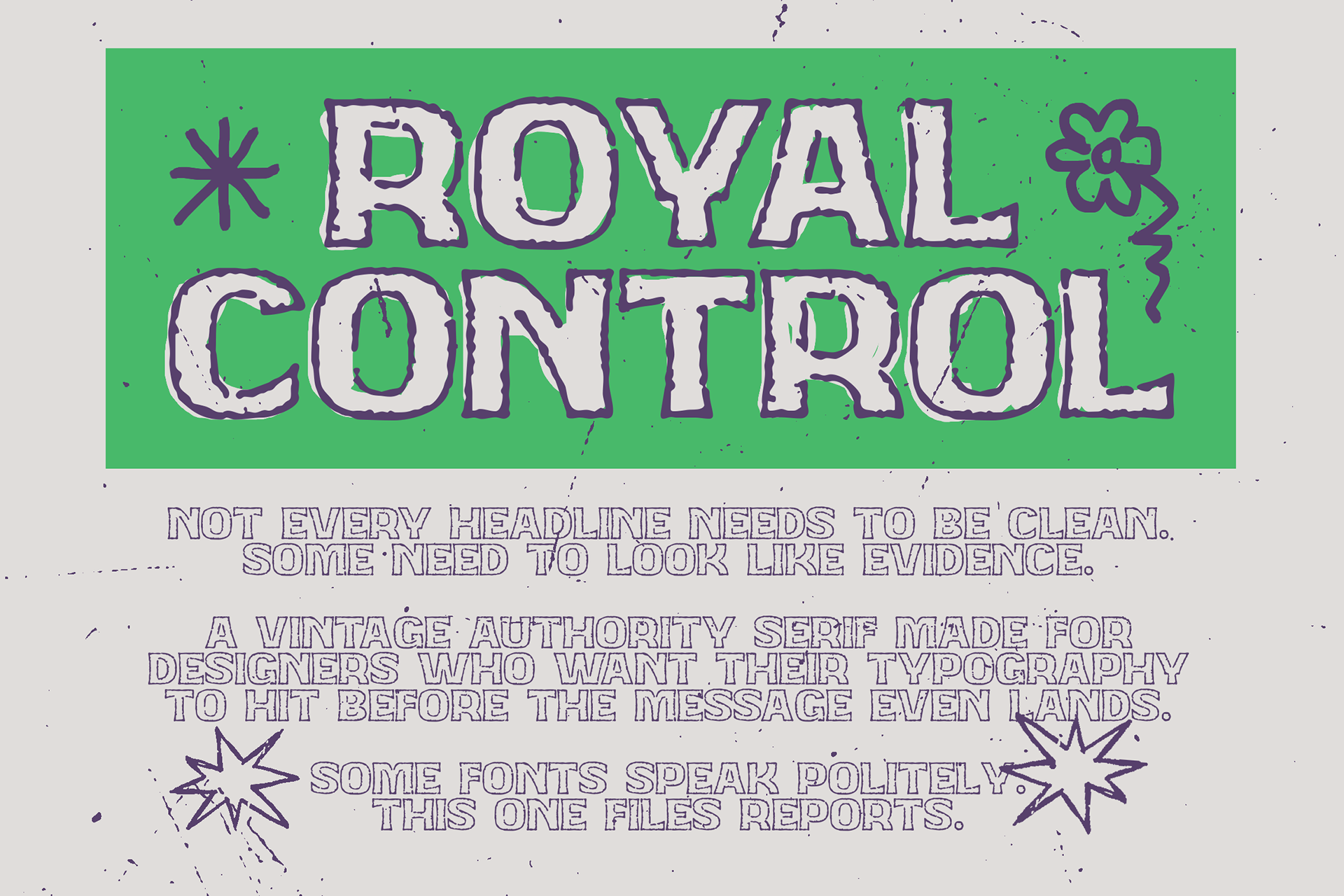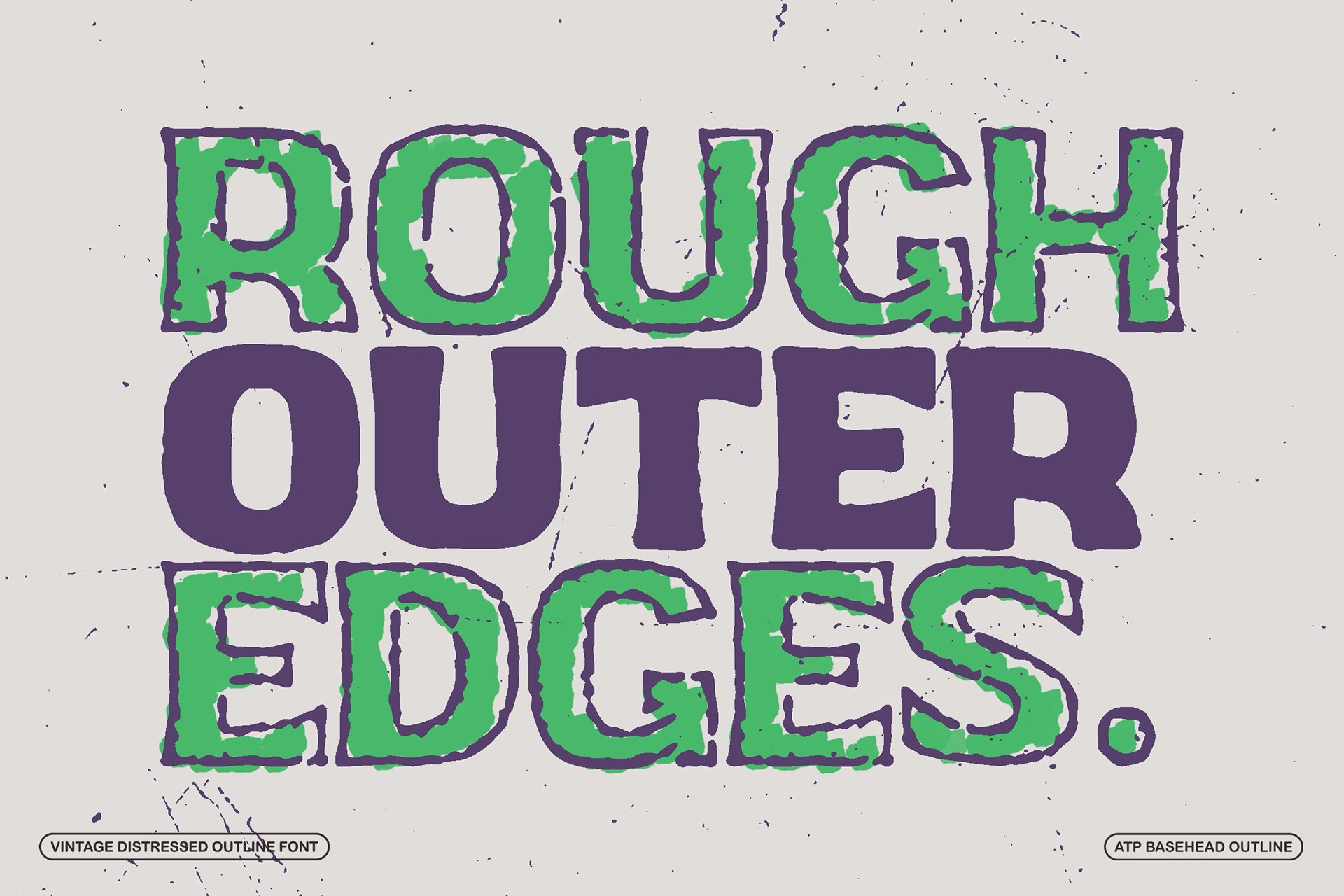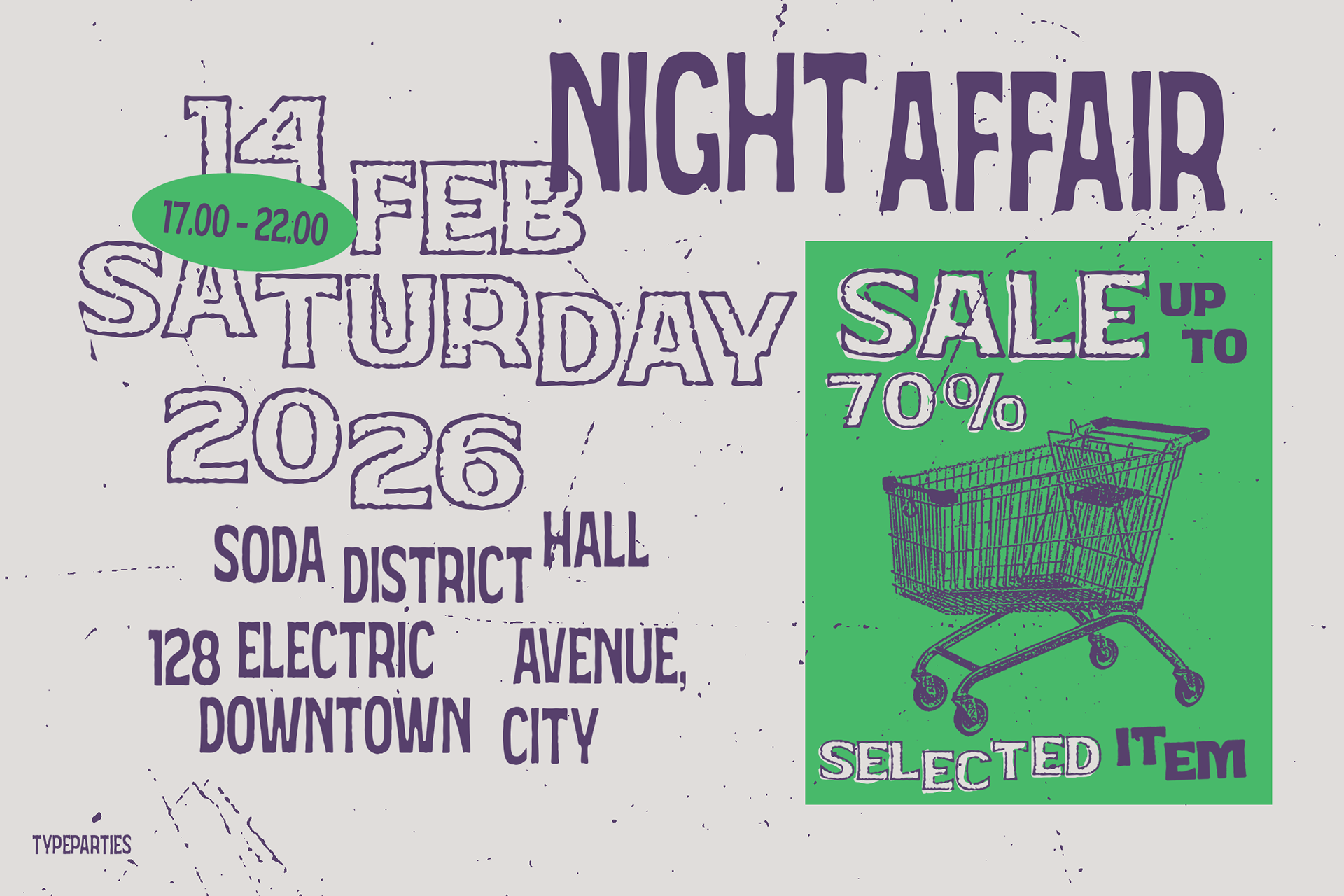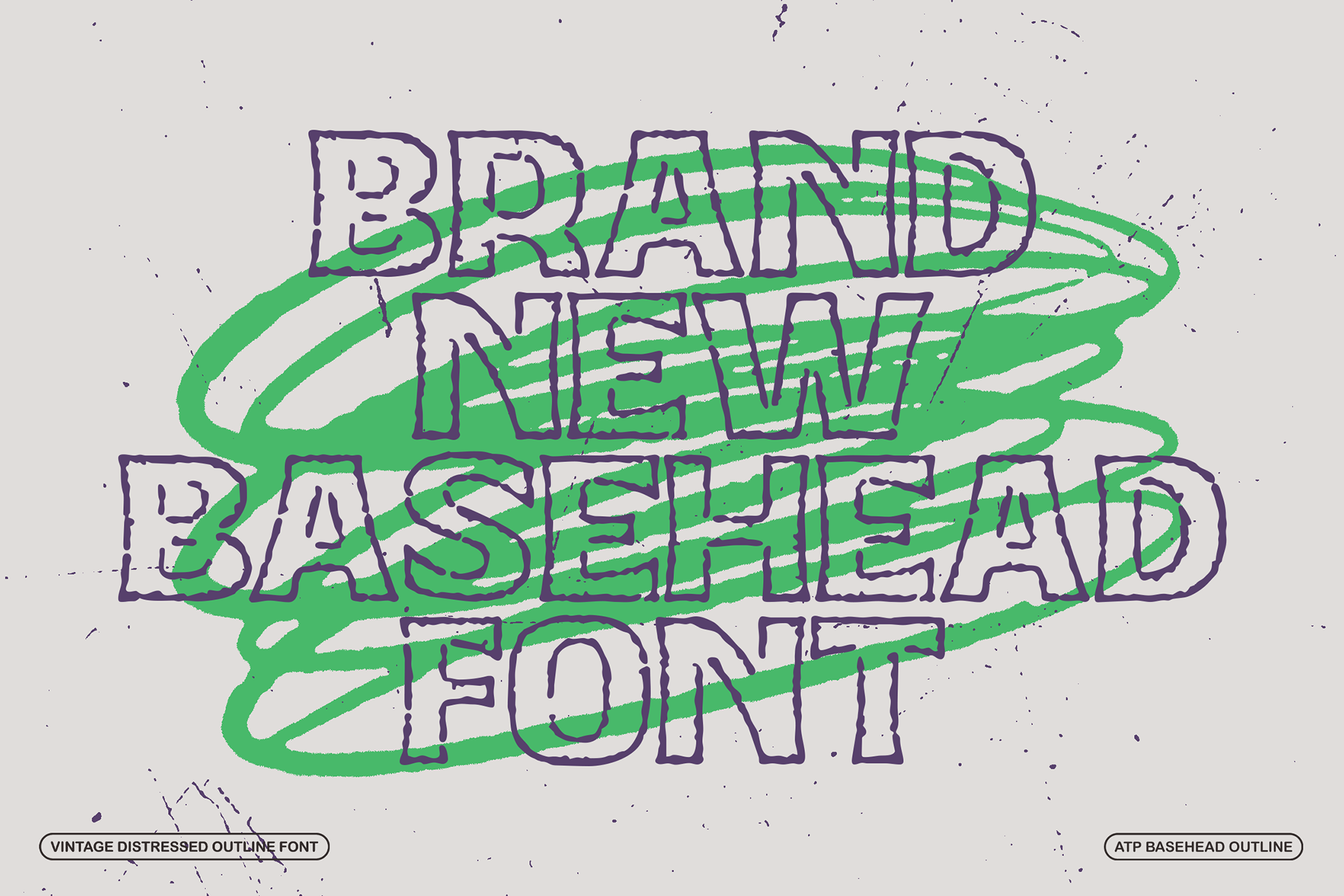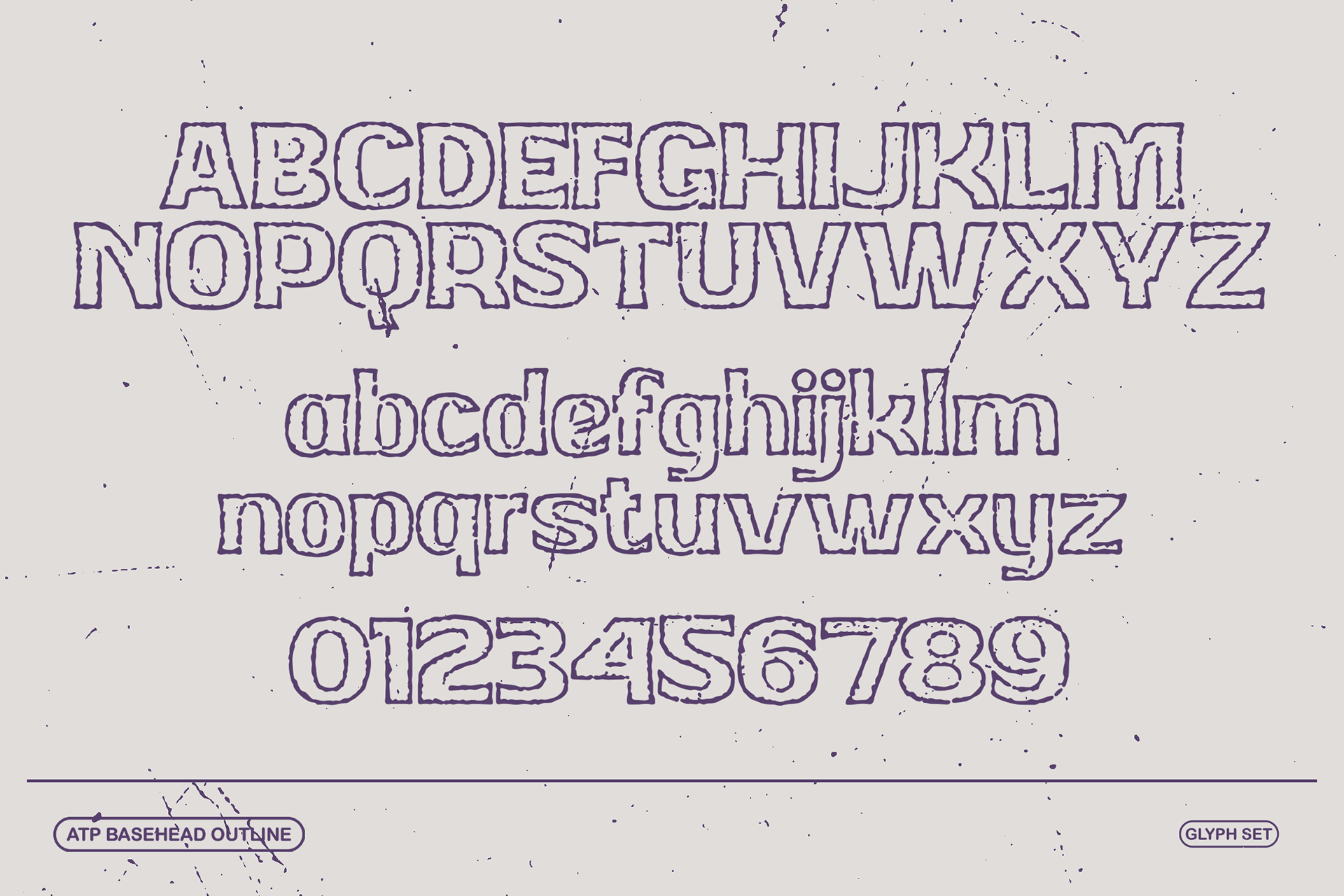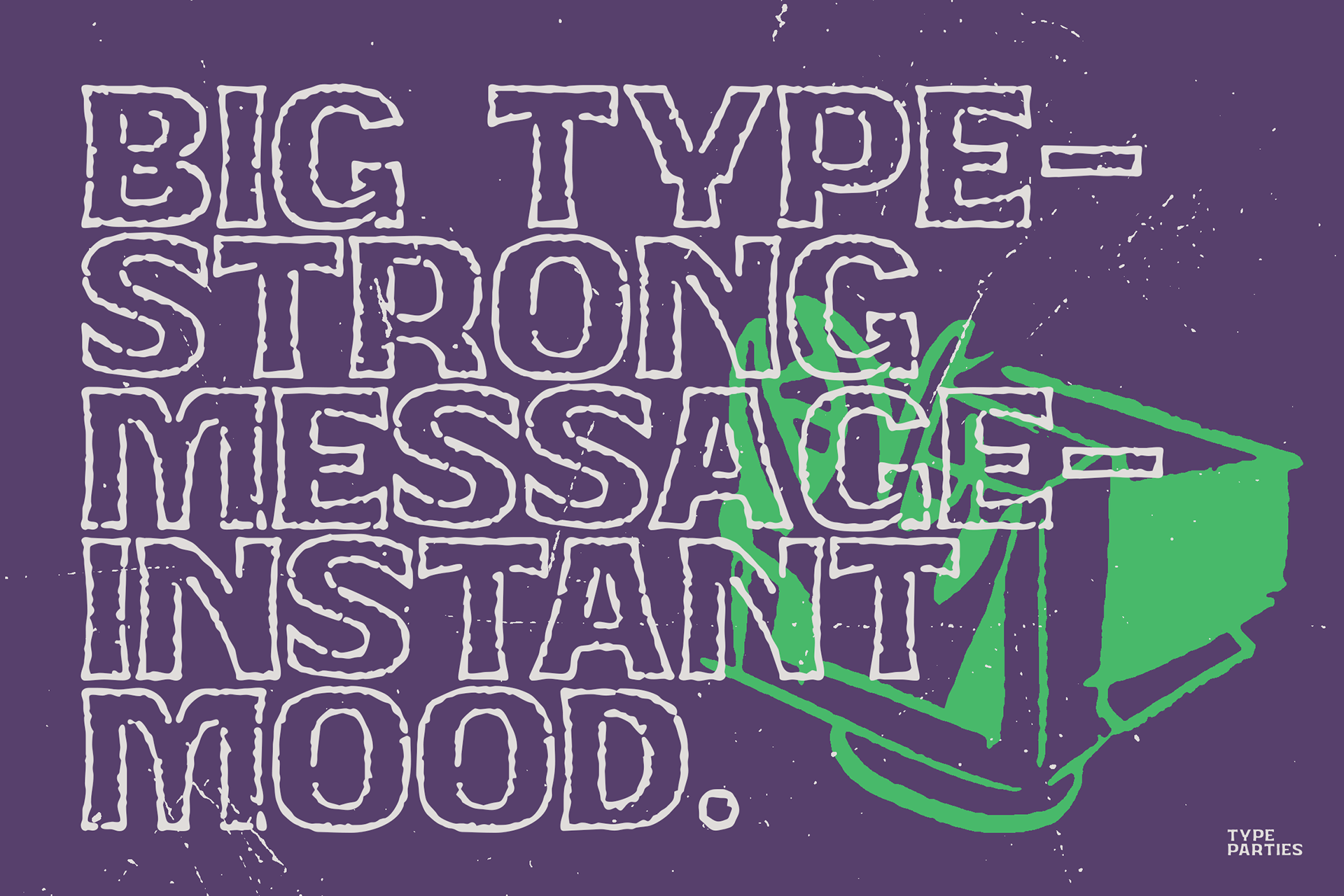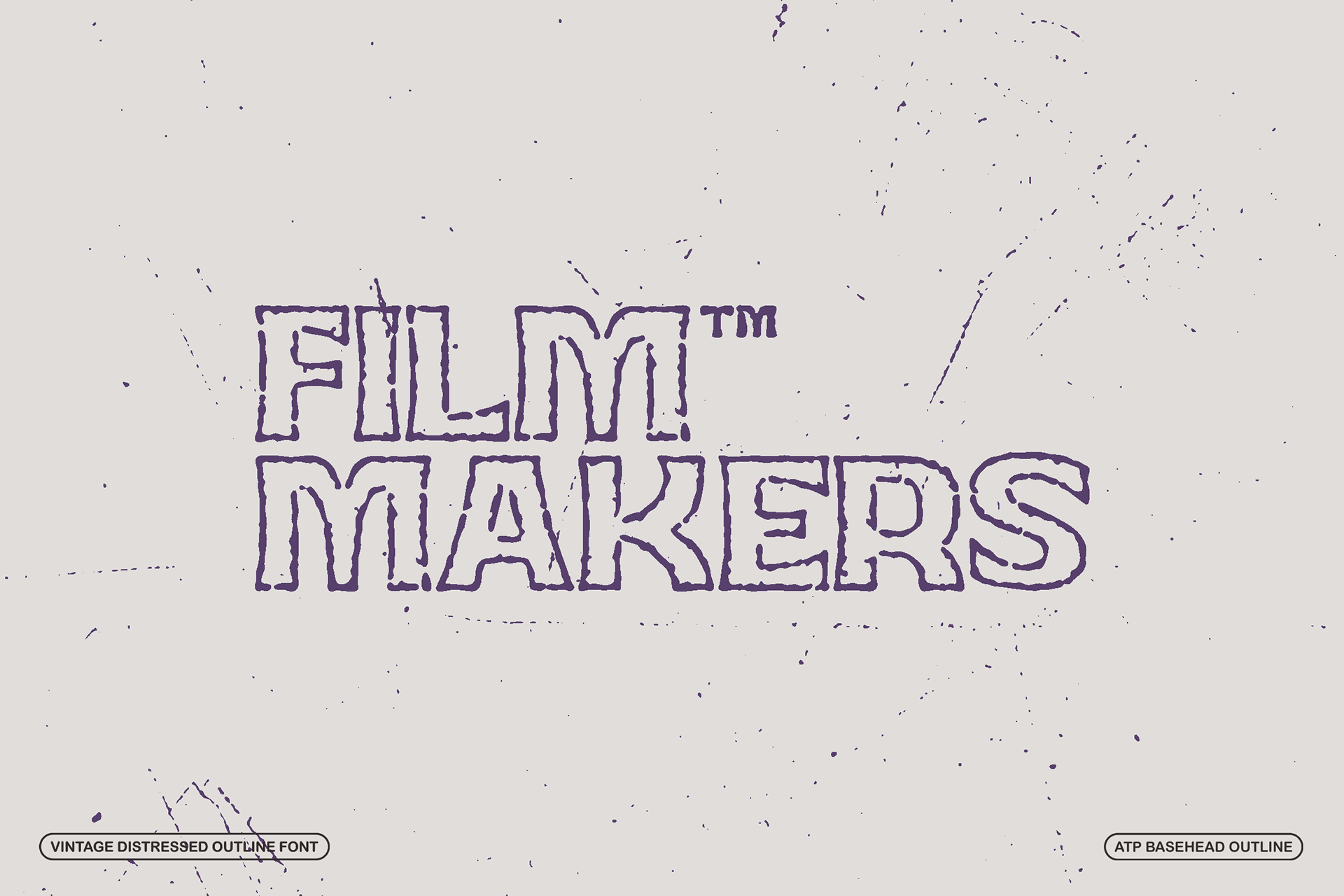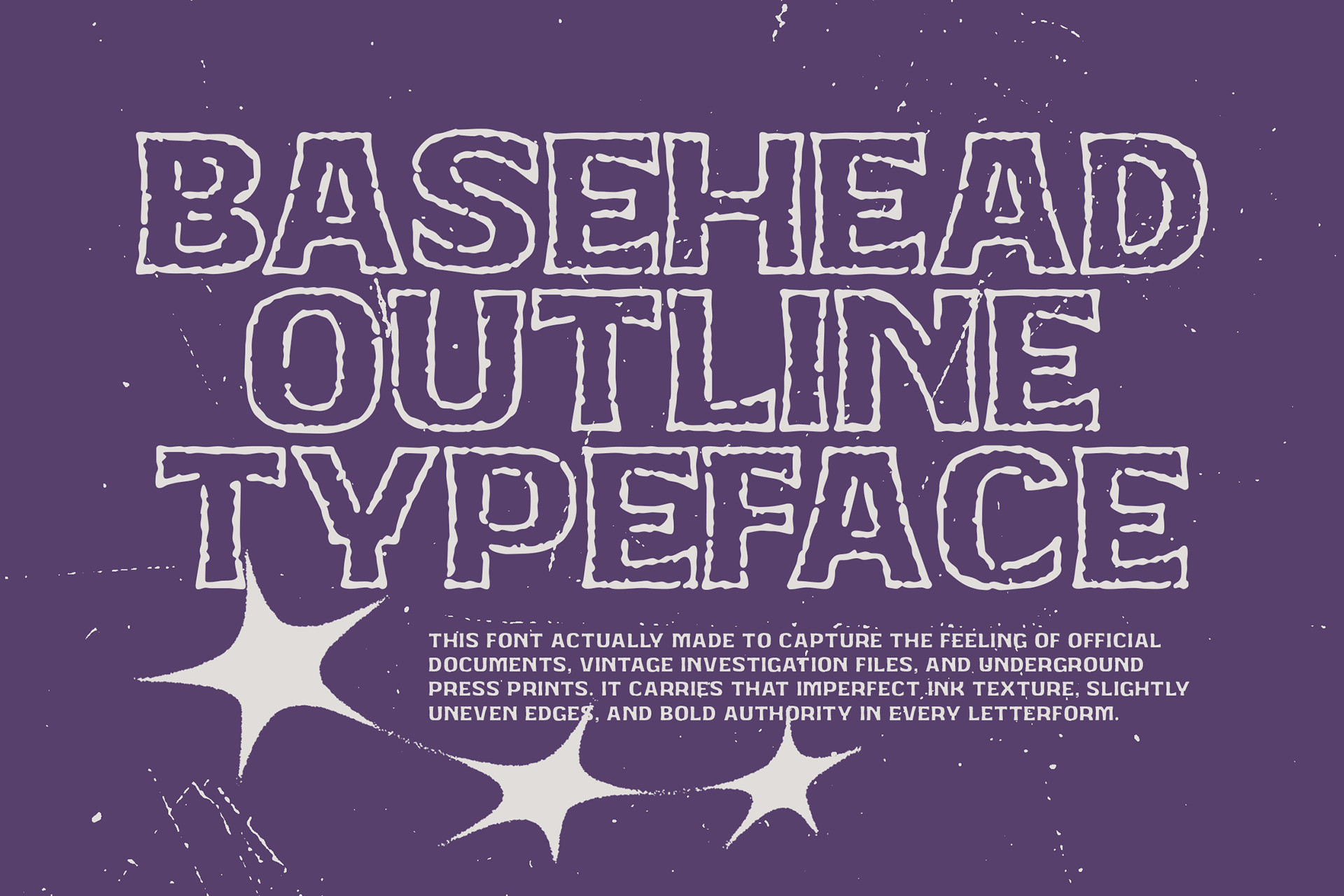
Basehead Outline - Distressed Display Sans Serif
BASEHEAD OUTLINE is a bold display sans serif typeface built to echo the raw authority of official documents, stamped case files, and underground press prints. It carries a distressed ink texture with slightly uneven contours, giving every letter a tactile, imperfect edge that feels real and unapologetic.
Designed in all caps with a strong outline structure, this typeface captures the visual tension between institutional authority and analog imperfection. The subtle roughness mimics aged print impressions and worn archival typography, making it ideal for designs that demand presence, texture, and character.
As a creator, I built BASEHEAD OUTLINE to feel like something pulled from a classified folder or a forgotten government archive. It’s bold, loud, and intentional. Not clean corporate. Not polished minimal. It has weight. It has story.